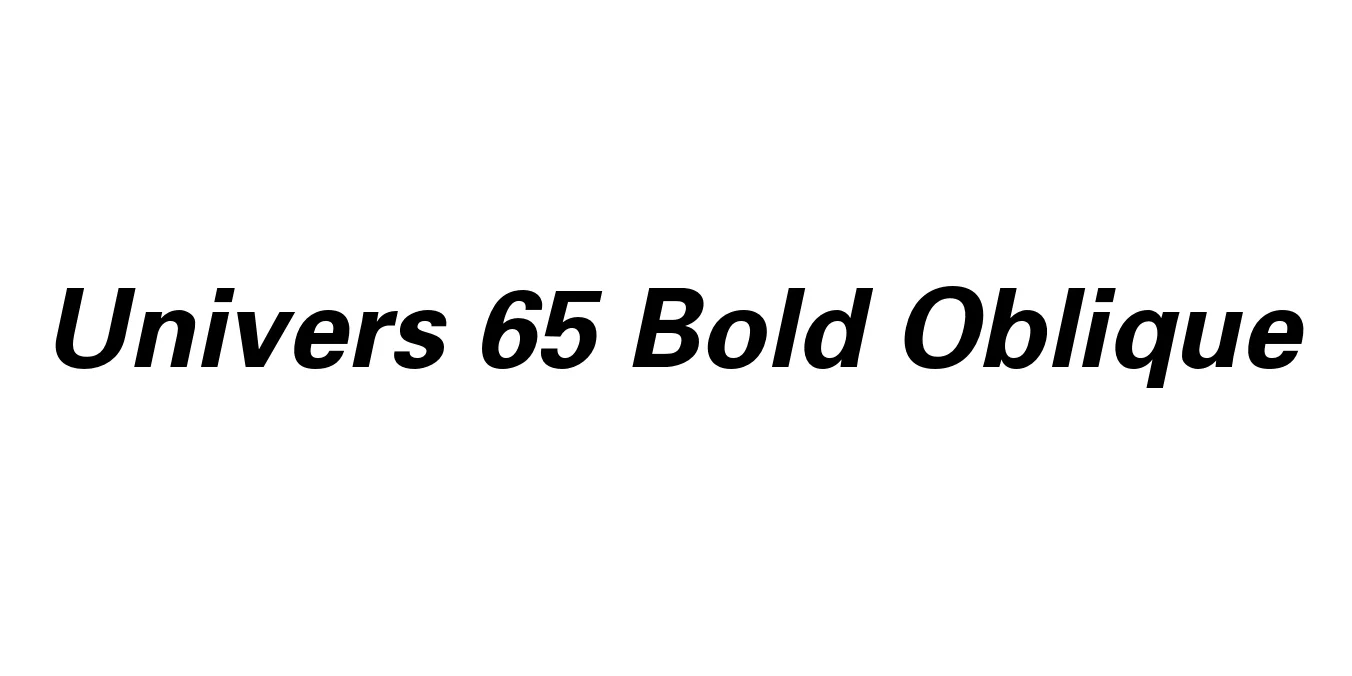
Univers 65 Bold Oblique
Designed by Adrian Frutiger
| Category | Sans-serif |
| Designer | Adrian Frutiger |
| Similar Fonts | Helvetica, Akzidenz-Grotesk, Folio, Inter |
Univers 65 Bold Oblique is a pivotal component of the extensive Univers family, a neo-grotesque sans-serif typeface designed by the Swiss master Adrian Frutiger in 1957. This specific variant, designated by the number '65', signifies a bold weight with a slanted oblique posture. It was part of Frutiger's revolutionary systematic approach to type design, where he created a comprehensive grid of 21 weights and widths that maintained a consistent visual language across the entire spectrum.
Renowned for its clarity, objectivity, and architectural precision, Univers 65 Bold Oblique has become a hallmark of the International Typographic Style. Its balanced proportions and lack of decorative elements make it highly versatile, allowing it to convey information with authority and modern sophistication. This font is particularly favored for high-impact communication where a sense of disciplined energy and professional urgency is required.
Univers 65 Bold Oblique Best Uses
Perfect for creating strong, recognizable logos and brand assets.
Excellent for bold headlines and emphatic pull quotes in magazines.
Highly legible from distances, making it ideal for wayfinding systems.
Provides a modern and authoritative tone for marketing campaigns.